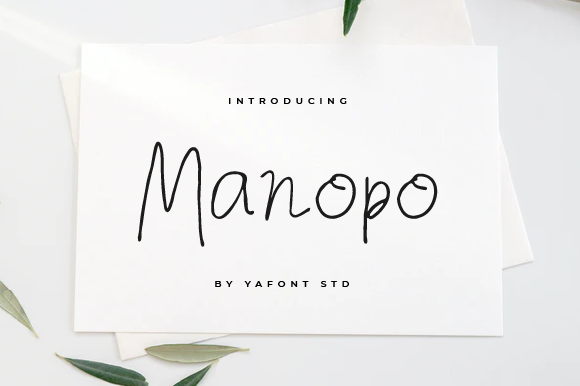
Manopo Font
About Manopo Font
Manopo is a simple and thin lettered handwritten font. Its natural and unique style makes it incredibly fitting to a large pool of designs.